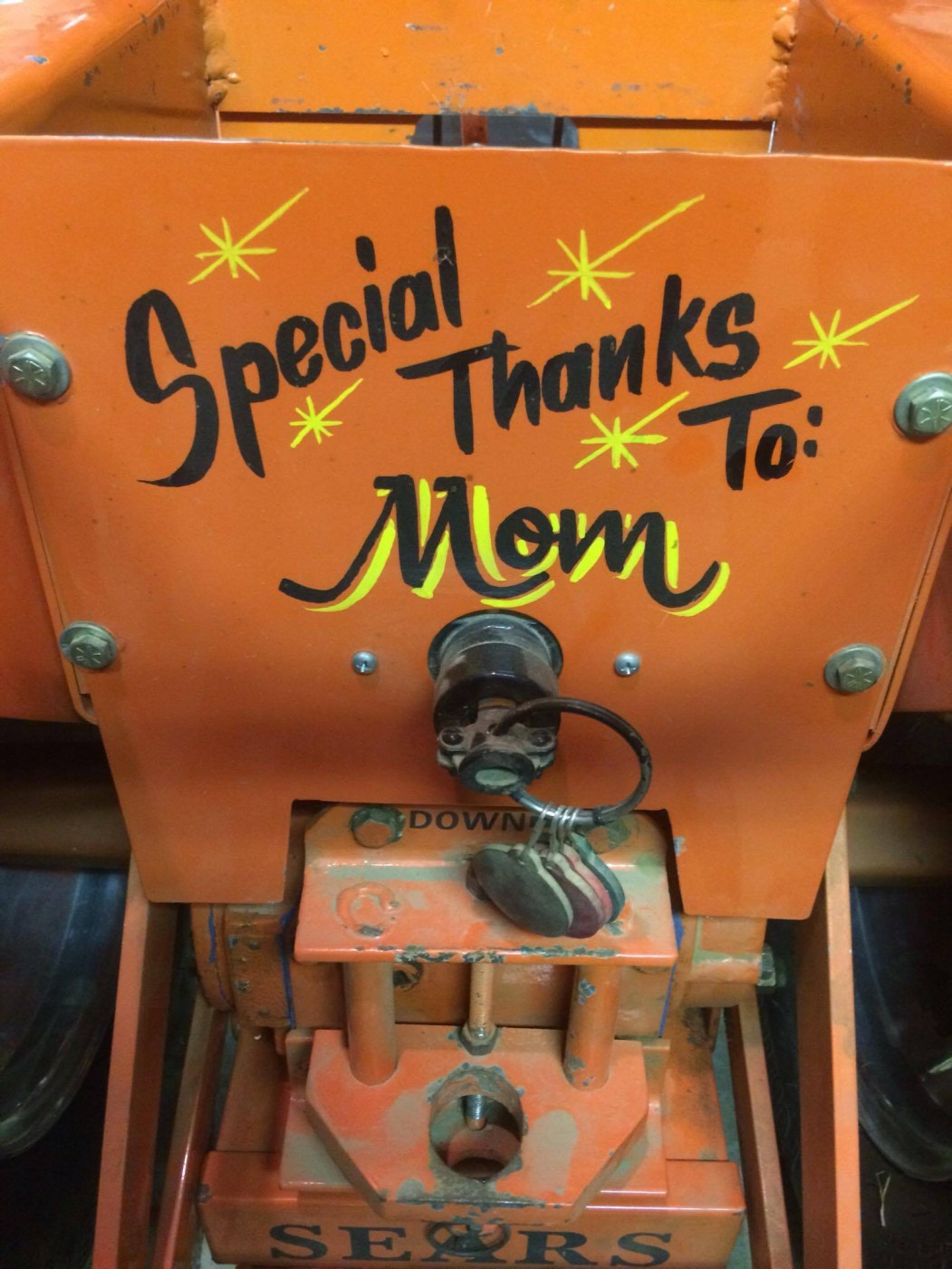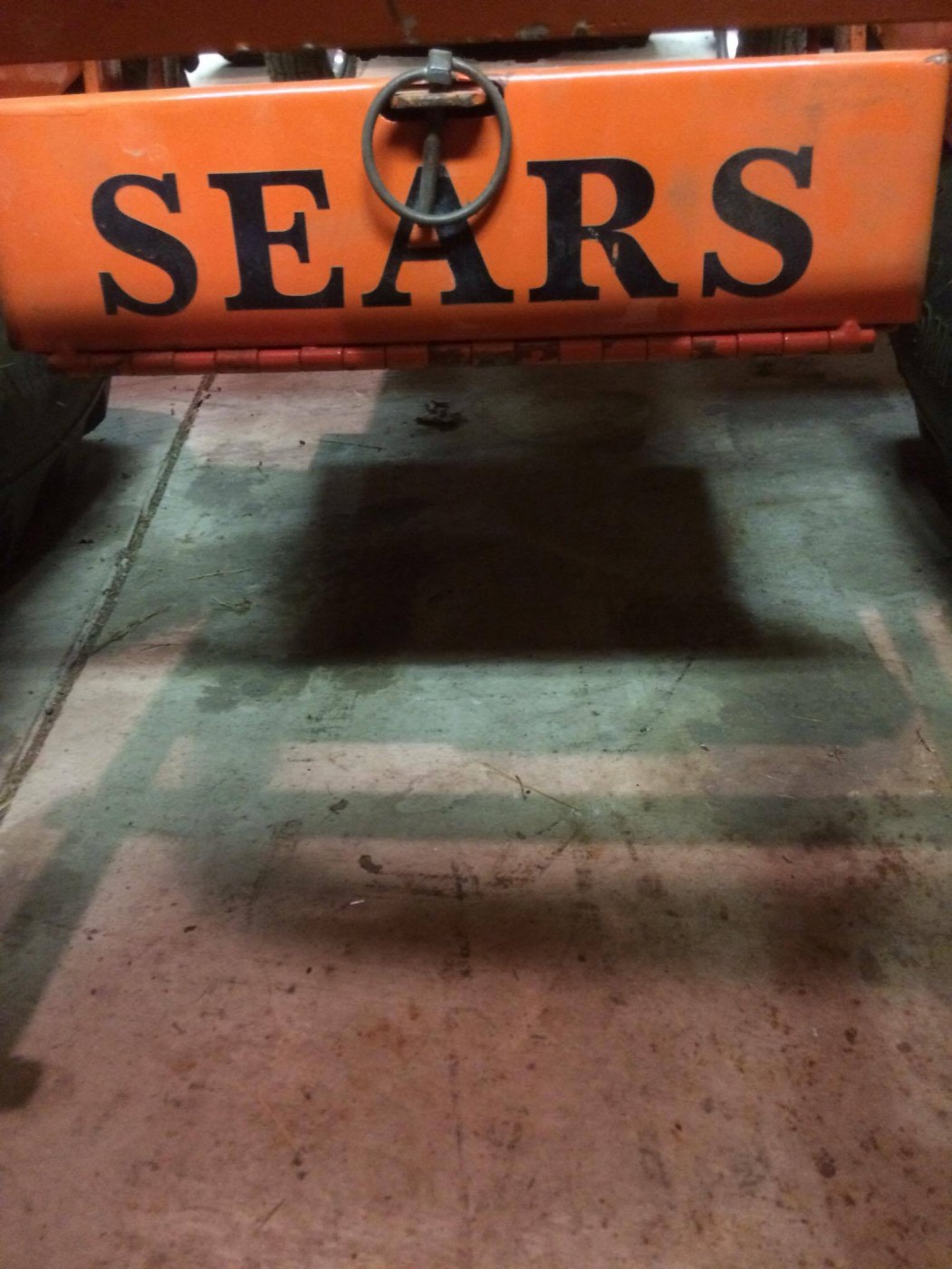
Two fonts, one scripty? and the other a simple serif font
My brother asked me to match these fonts for him for a client, and my deadline is tomorrow.... I guess the client is incredibly picky and it has to match perfectly, so I figured I'd ask the experts. The images aren't clear enough for me to pull the font out, and I'm garbage at matching fonts. Please help, and thank you in advance!